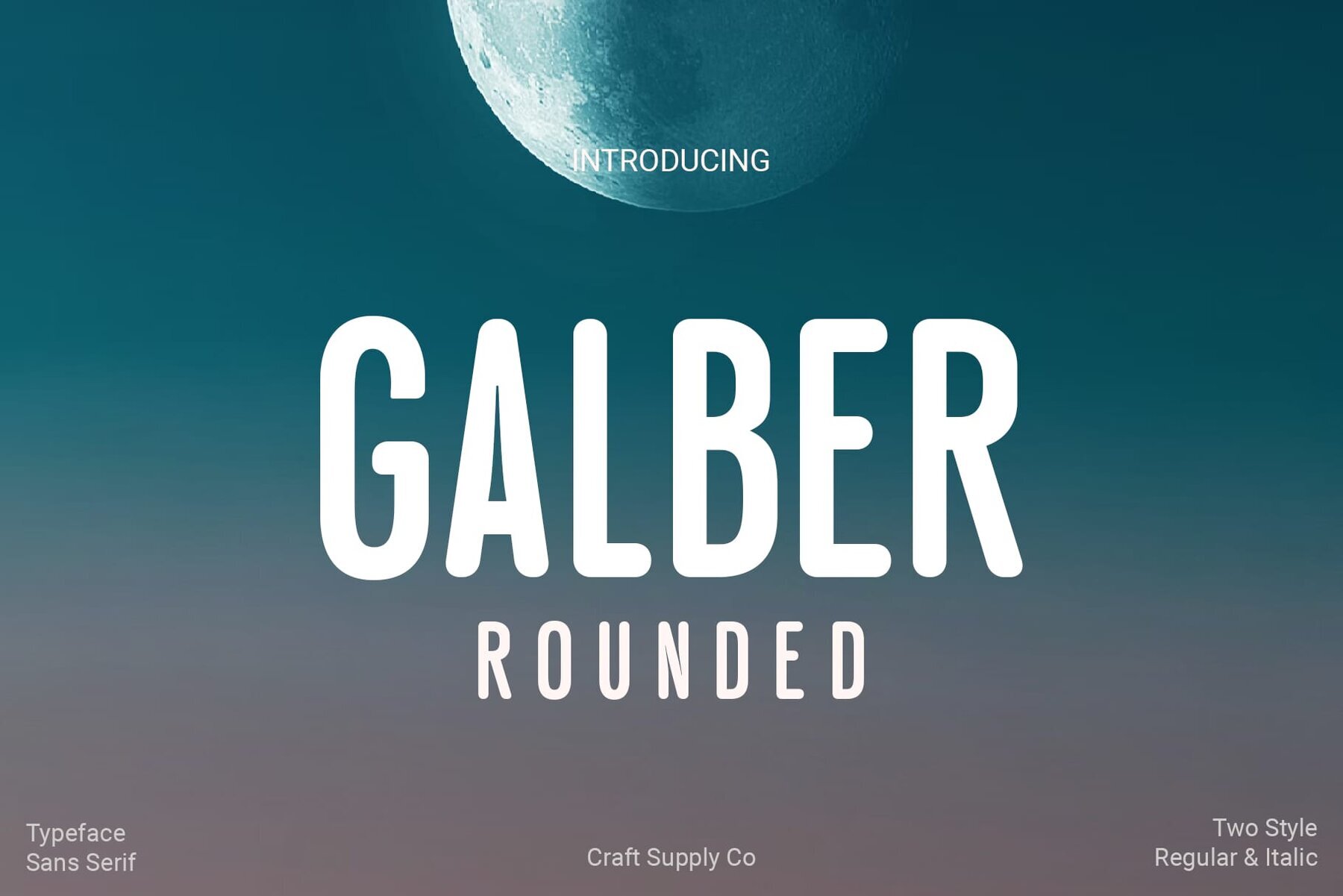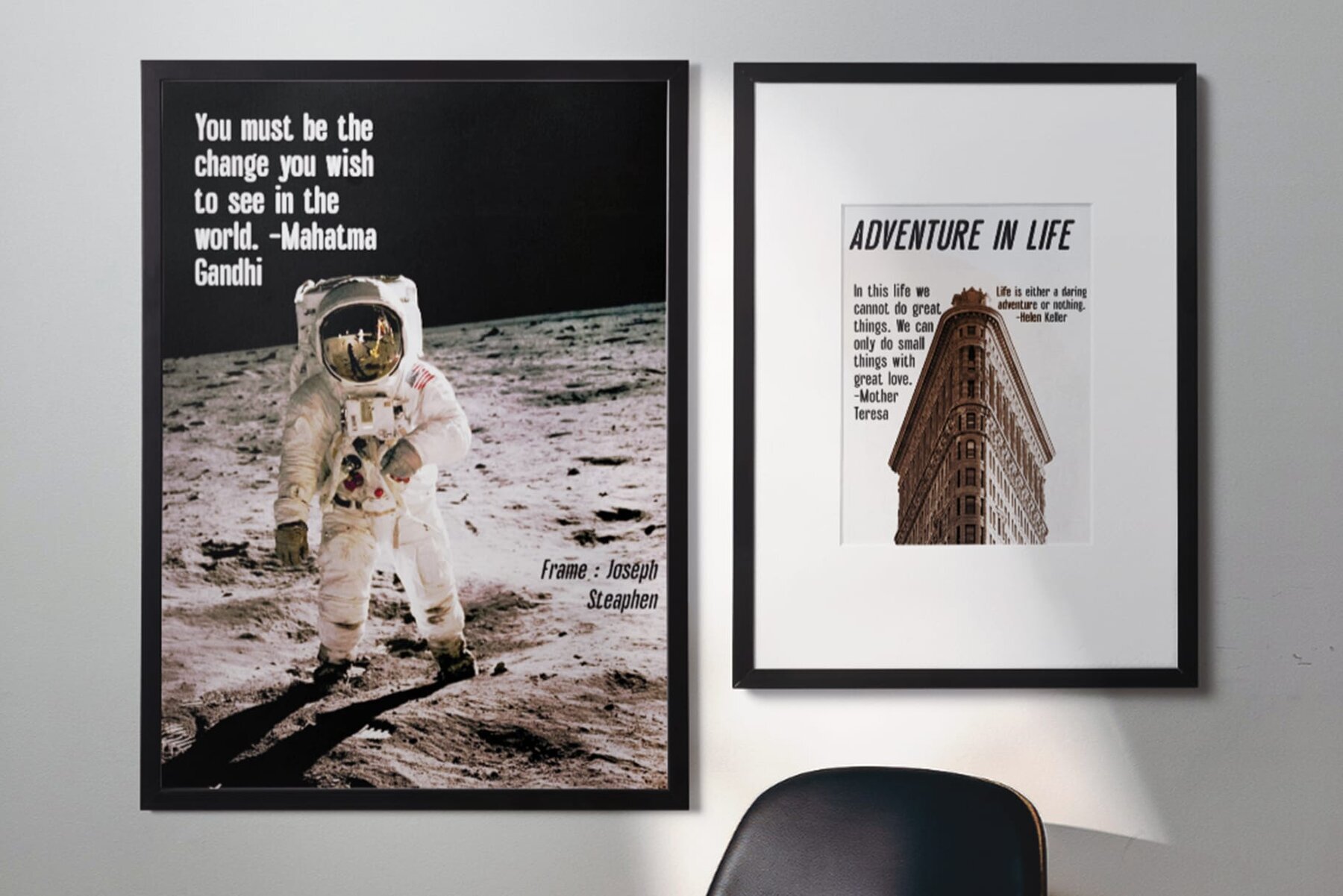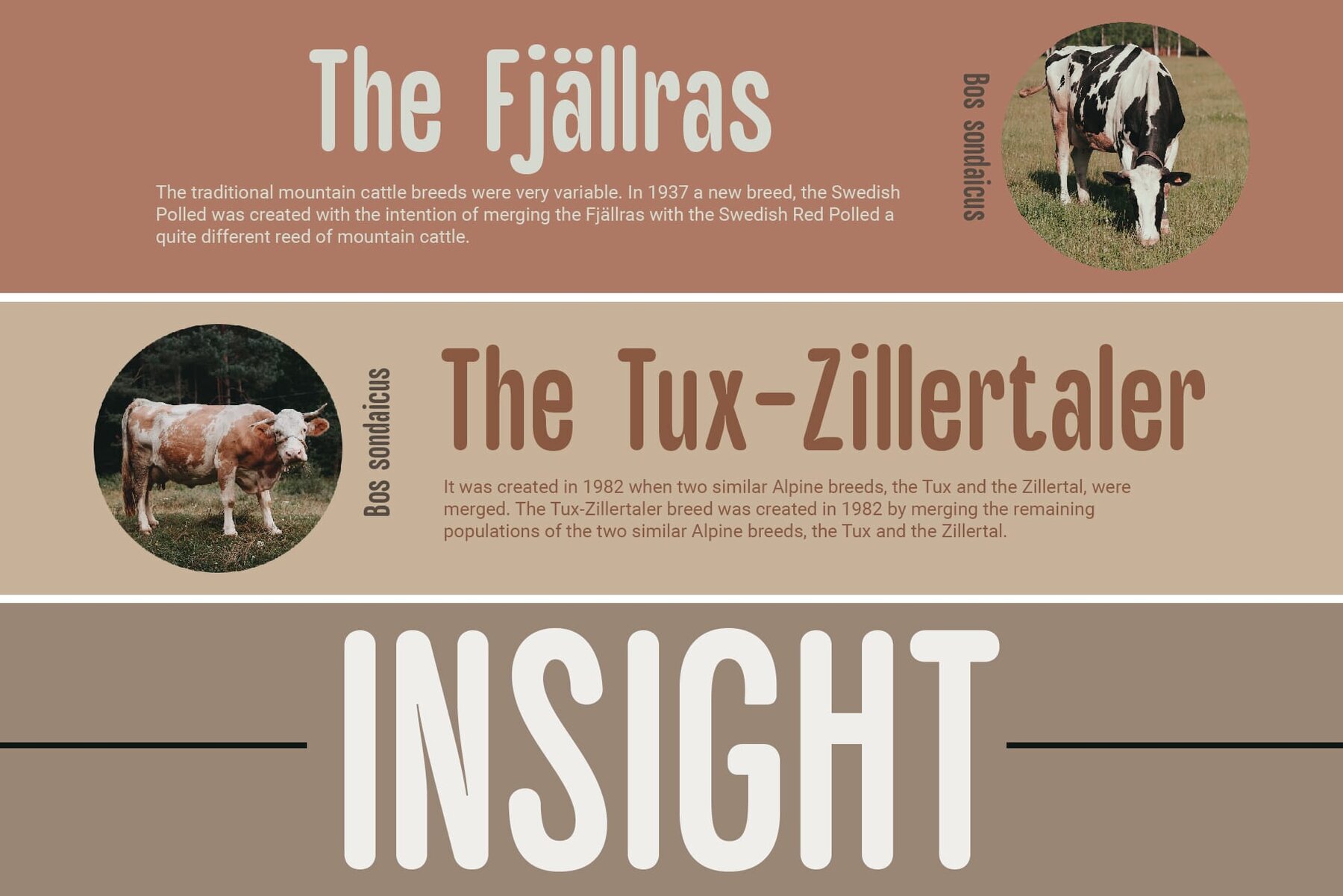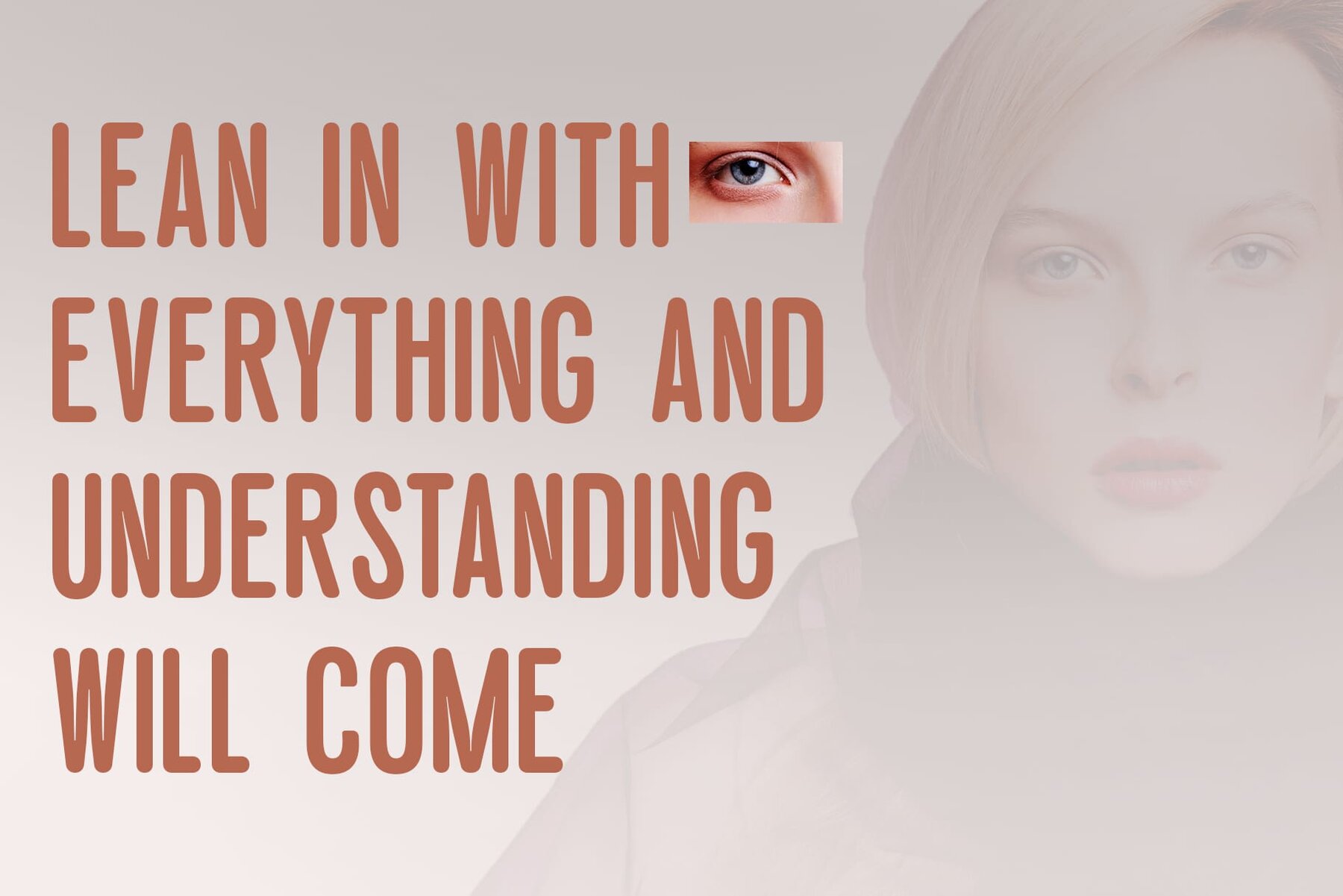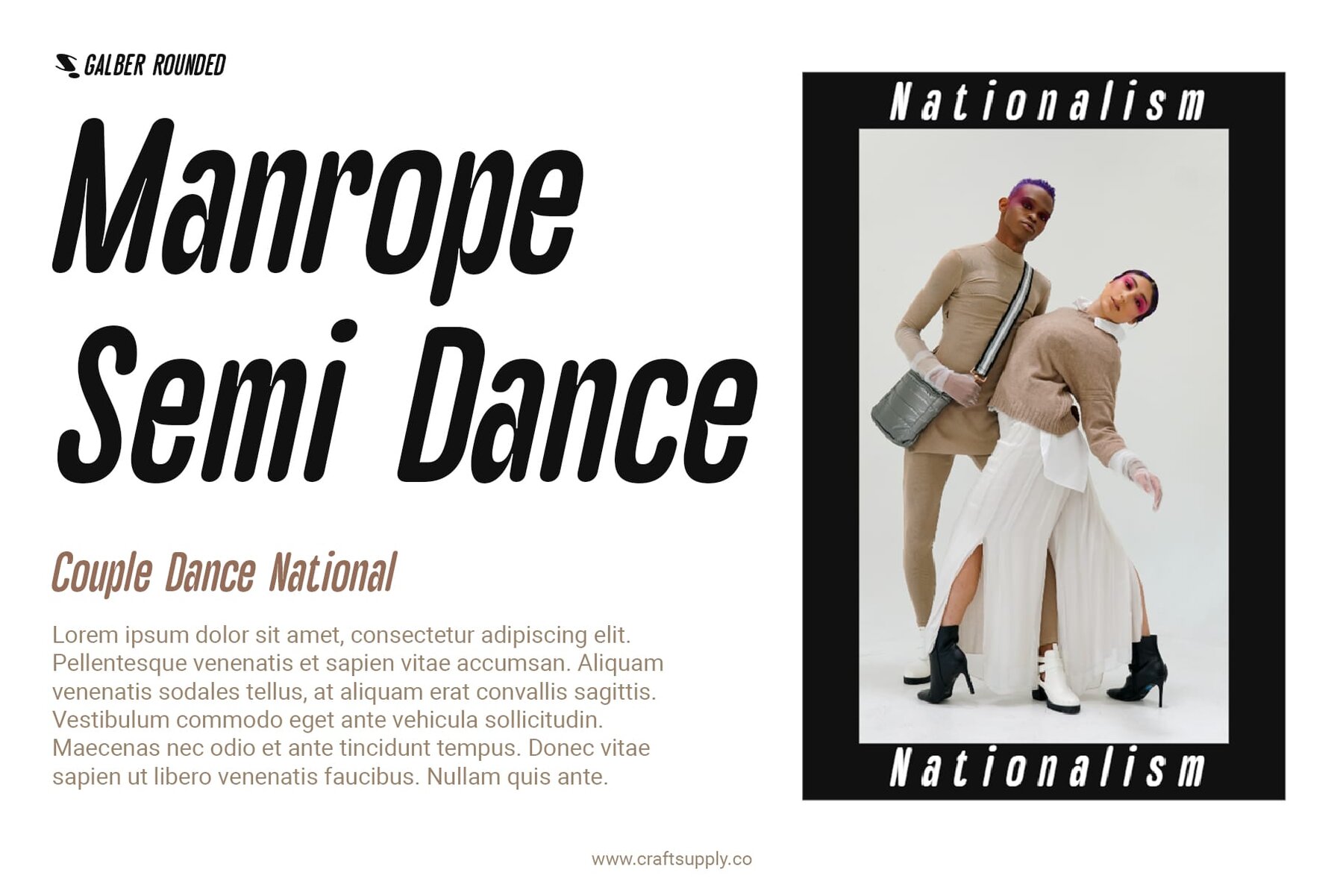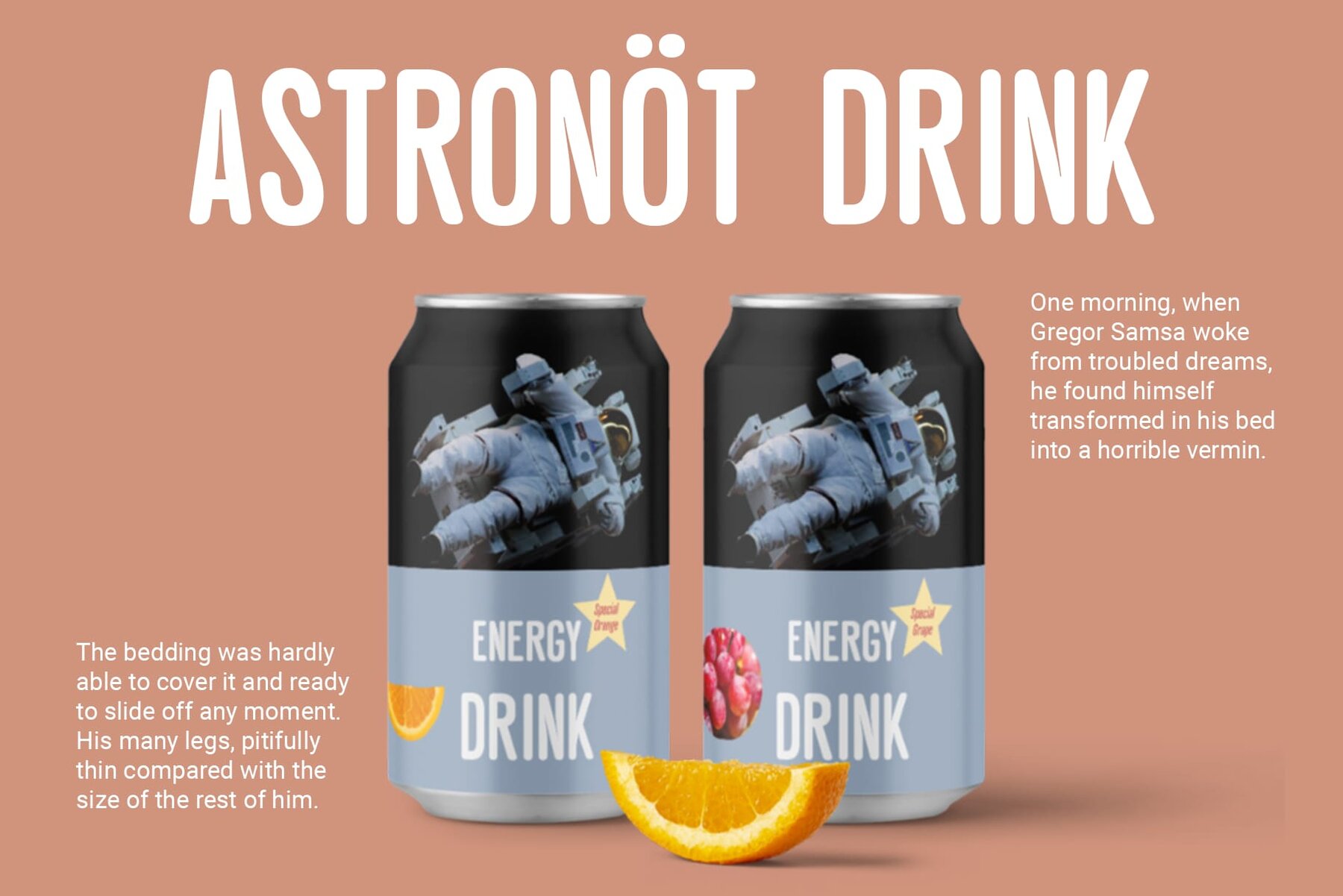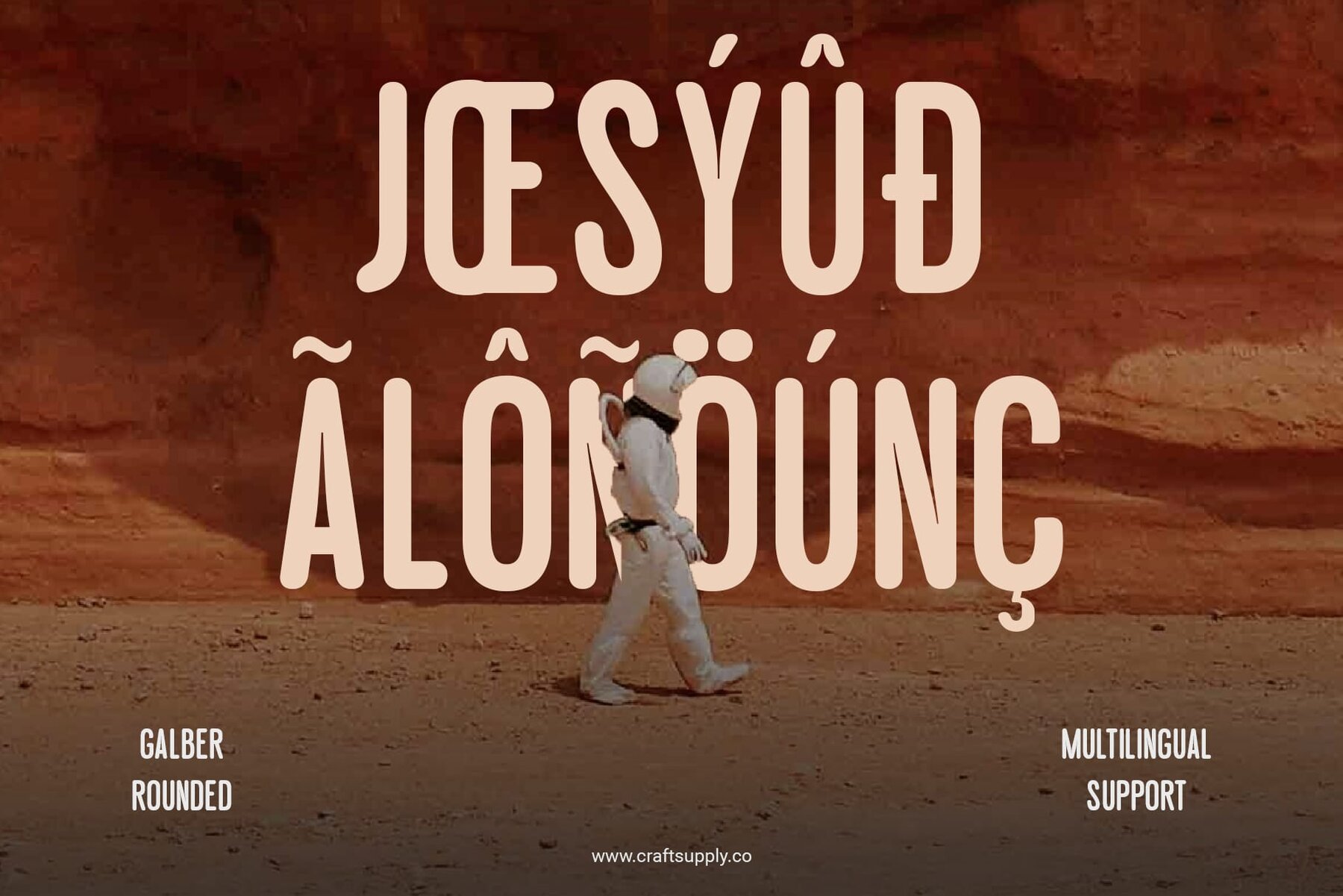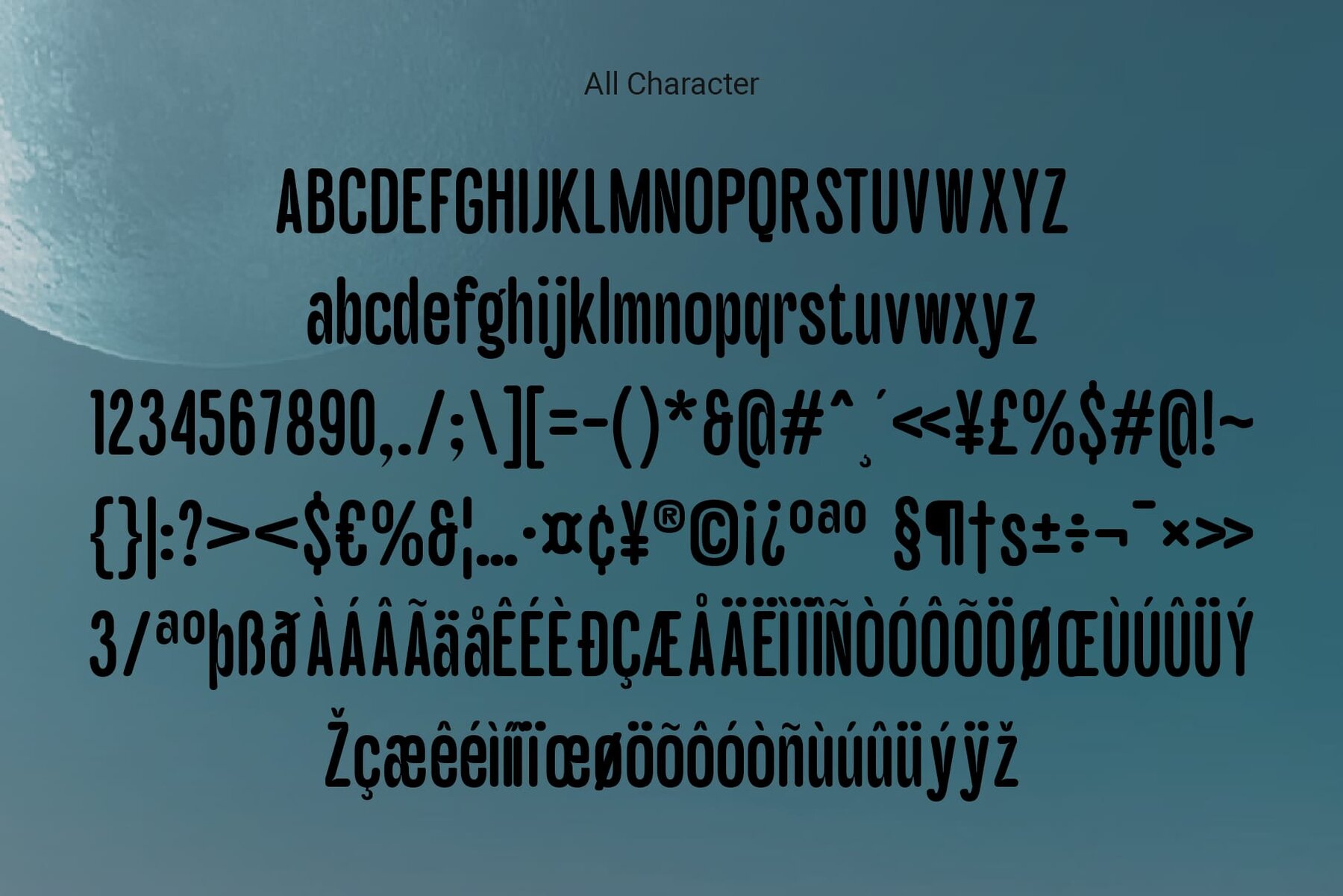
Galber Rounded Font
Galber Rounded by Craft Supply Co. is designed to exude a welcoming vibe with its low contrast sans serif and rounded stem terminals. Its soft edges create a friendly and approachable feel, making it ideal for various design projects. No specialized software is required to use this typeface. If you have any inquiries or need assistance, please feel free to contact us. We appreciate your support in enhancing your creative projects! Best regards, Craft Supply Co.Galber Rounded: A Friendly Sans Serif